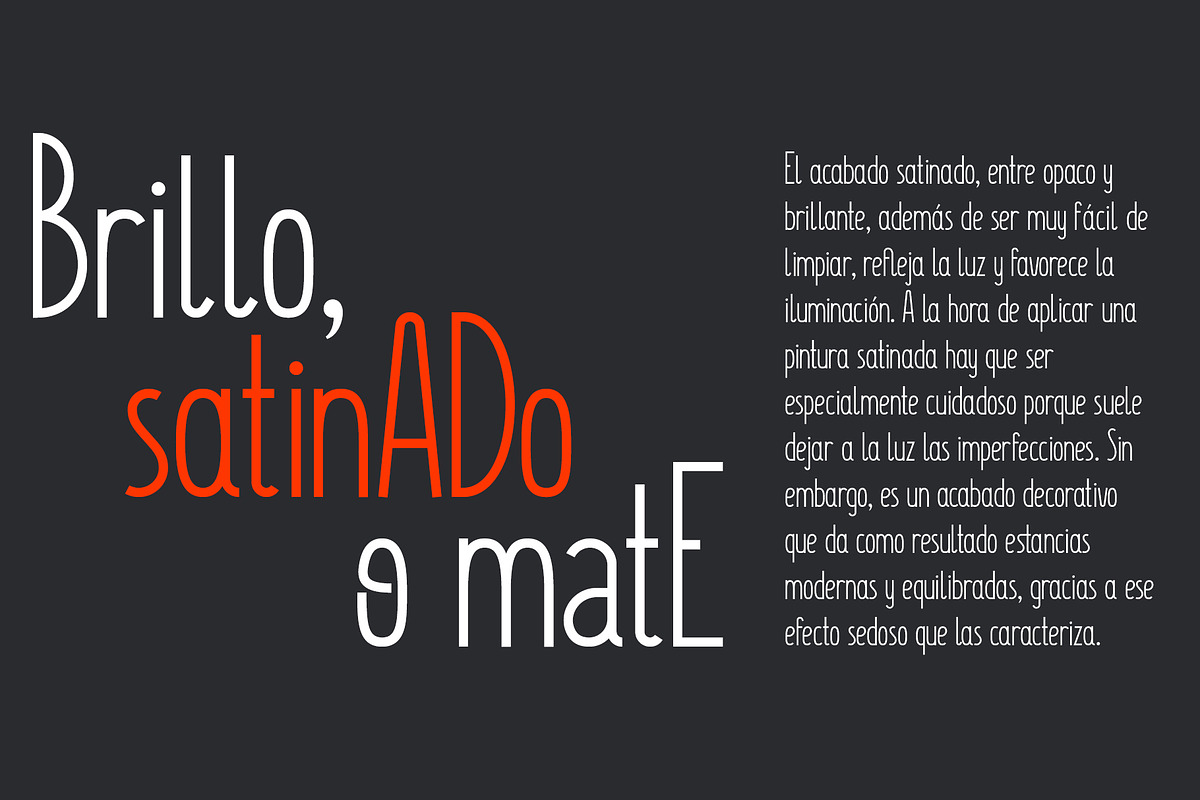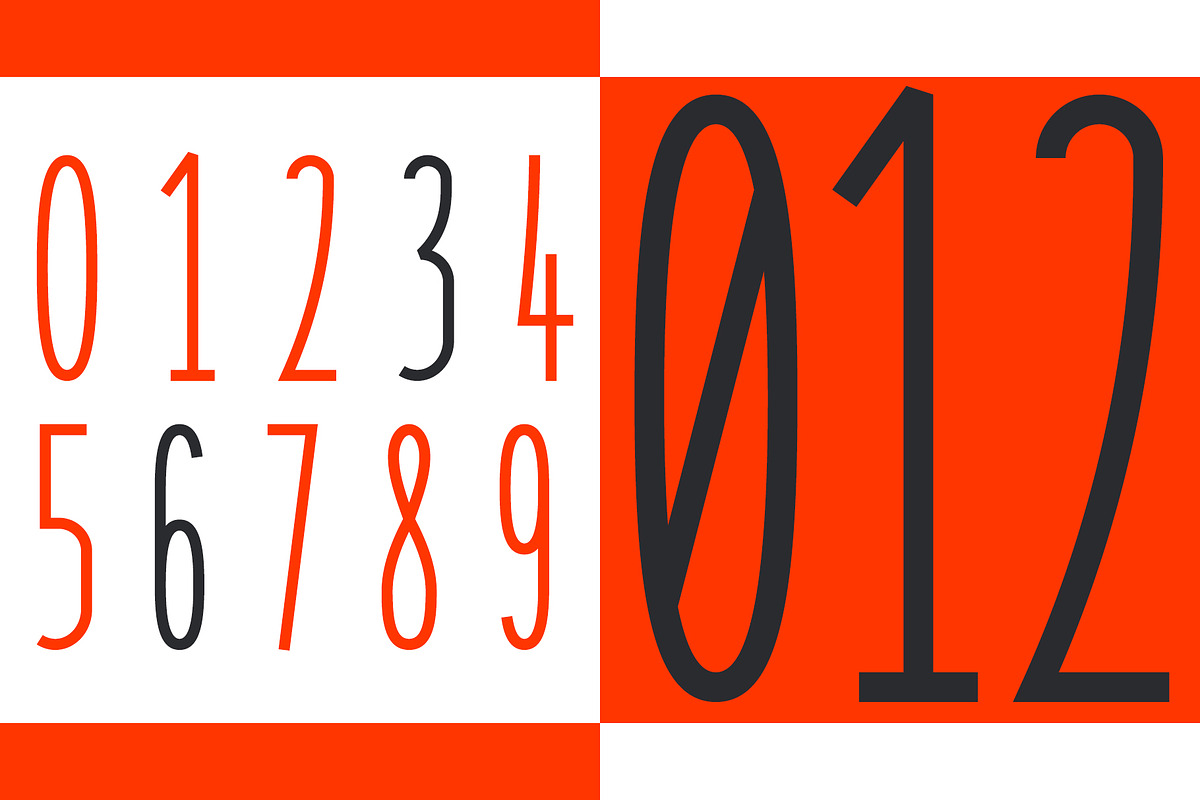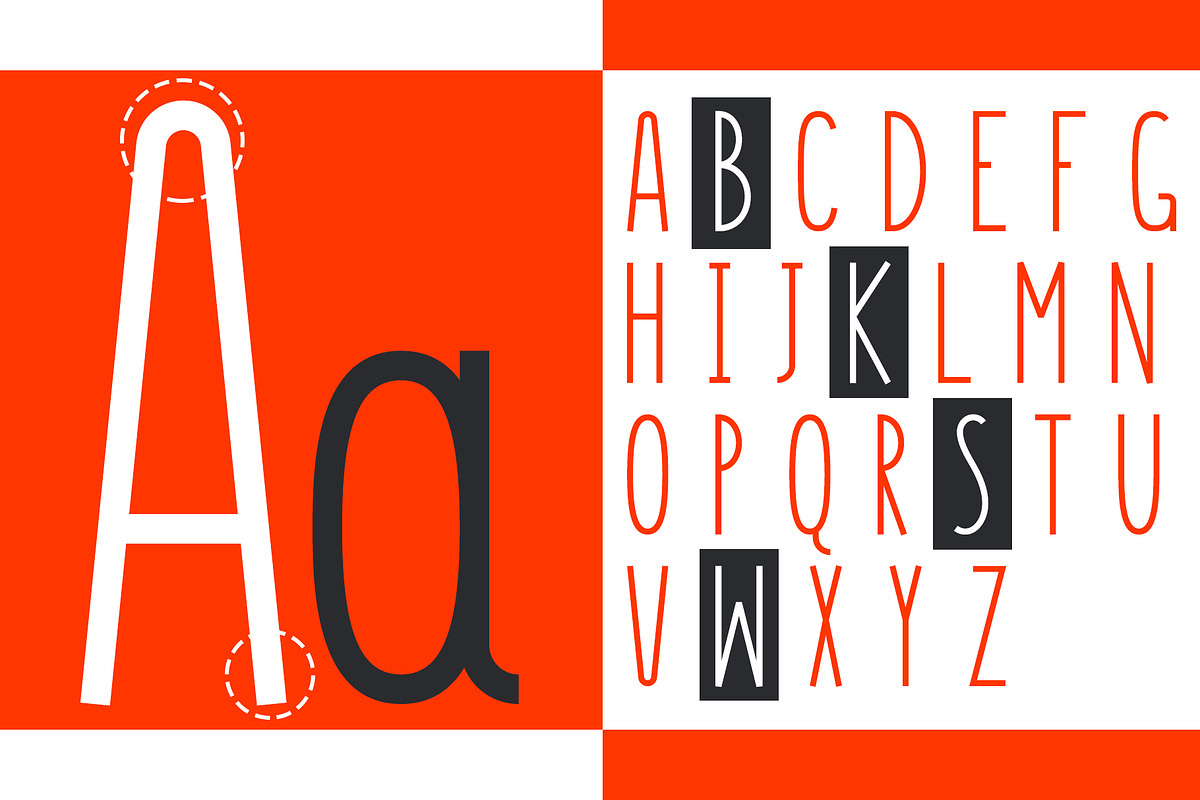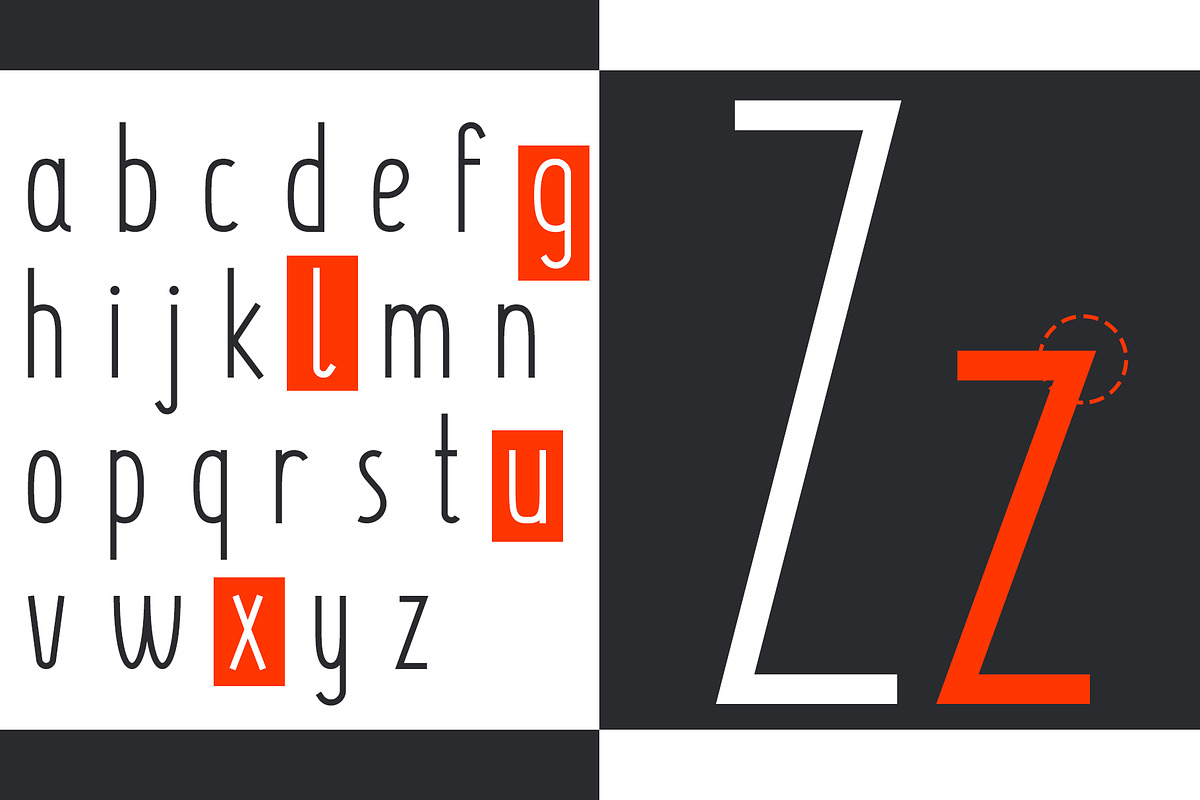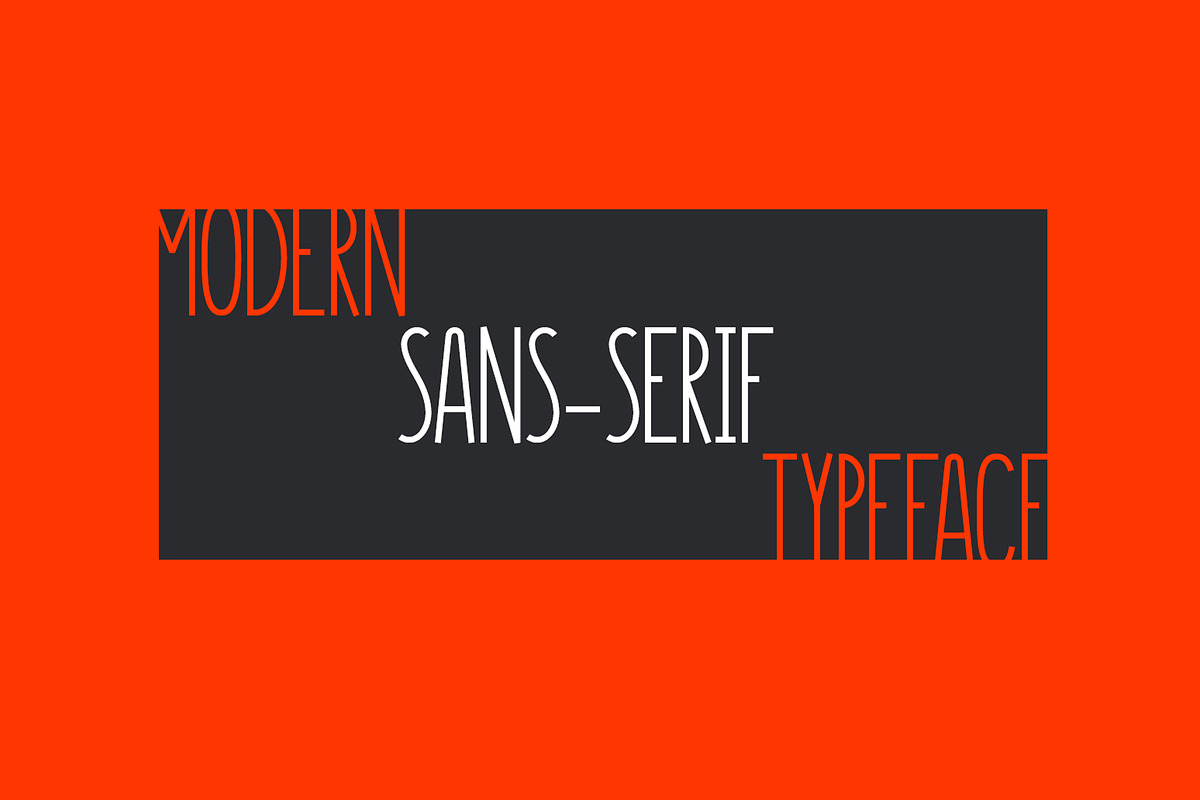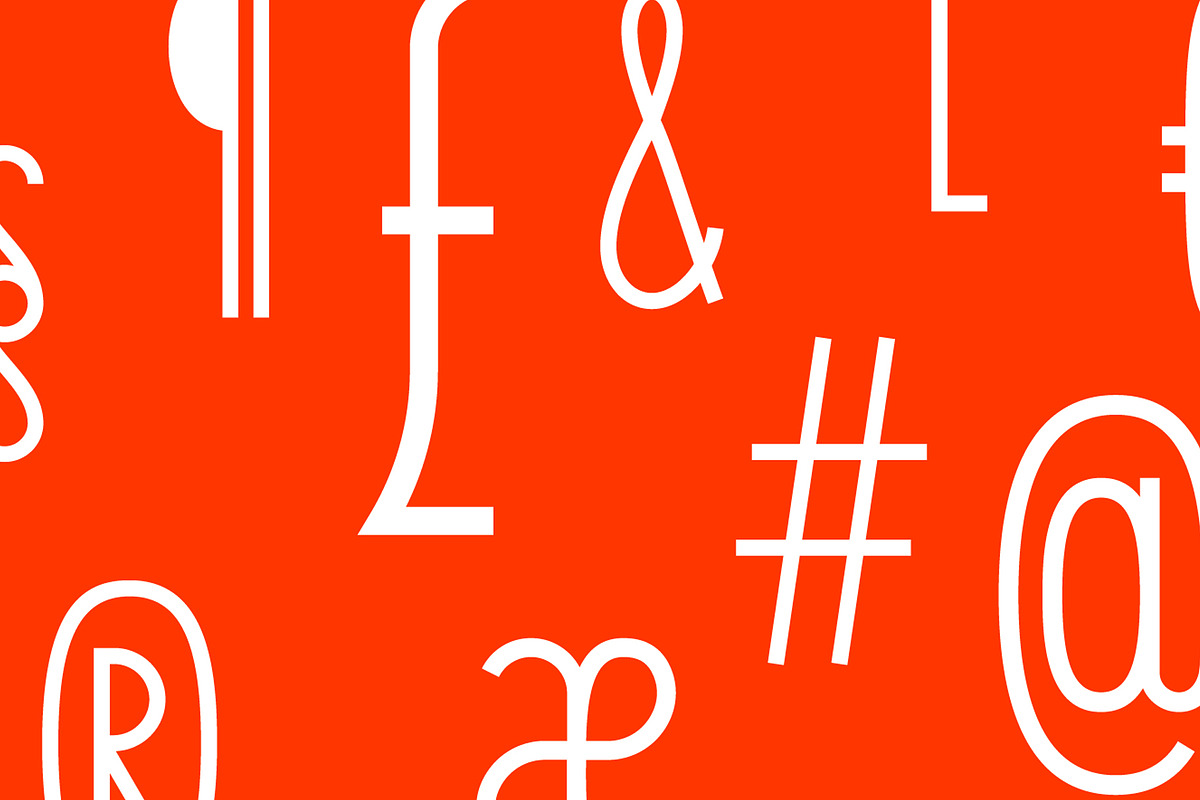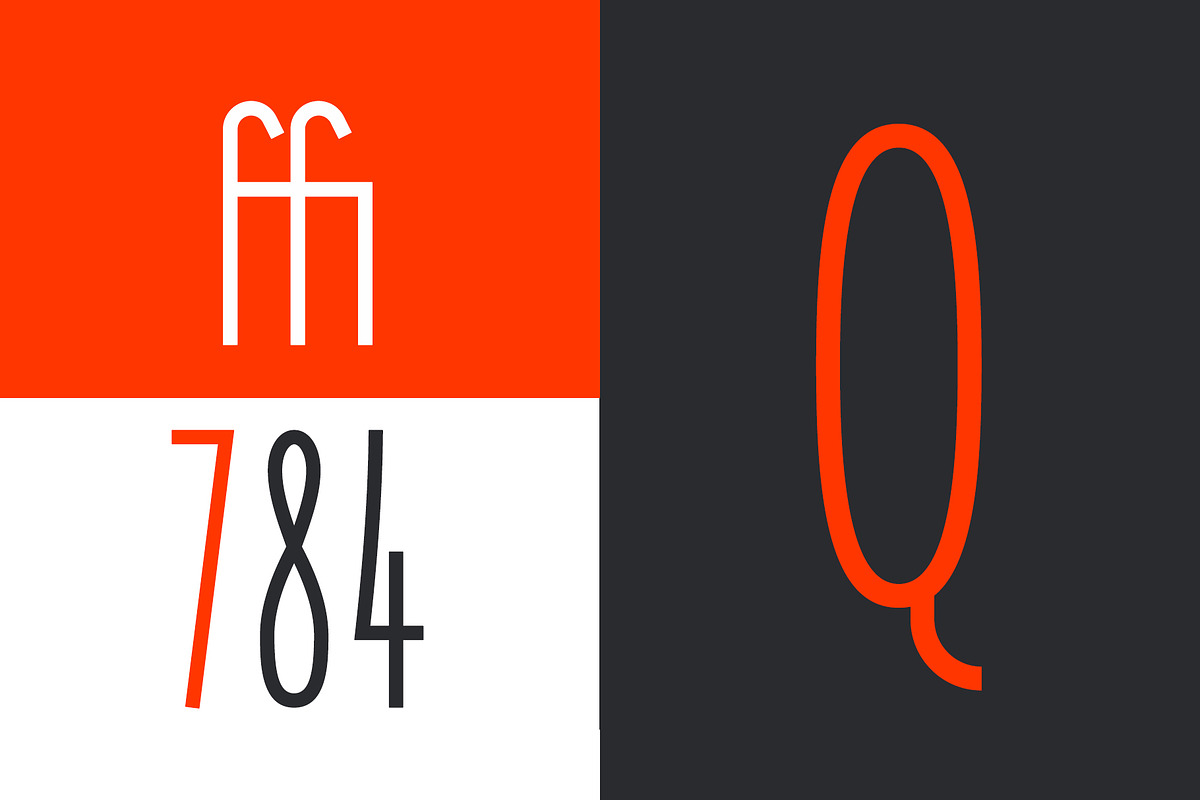
Satinado Sans Serif Font
This typeface was designed specifically for your project. No matter what you create, this font is perfect for your application, iOS, Android, Websites and presentation or Graphic Design. A magnificent combination of lines and proportions creates a stunning and modern design. Created with passion to deliver the highest quality product.
Latin and Cyrillic alphabets
Satinado Sans Serif Font by Alex Blogoodf fits naturally into Branding, posters, packaging, typography.